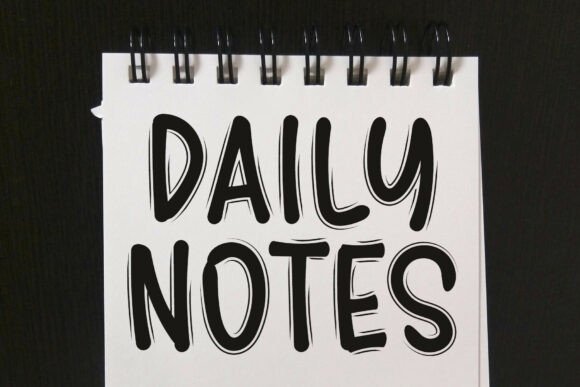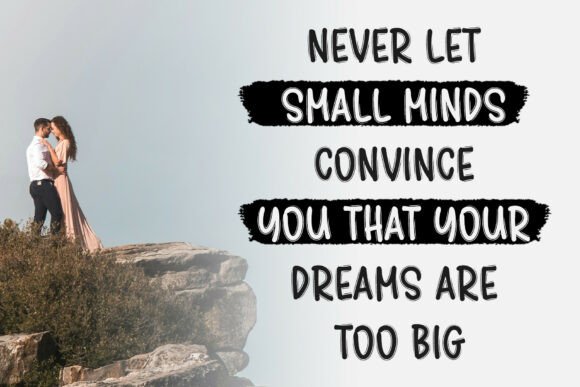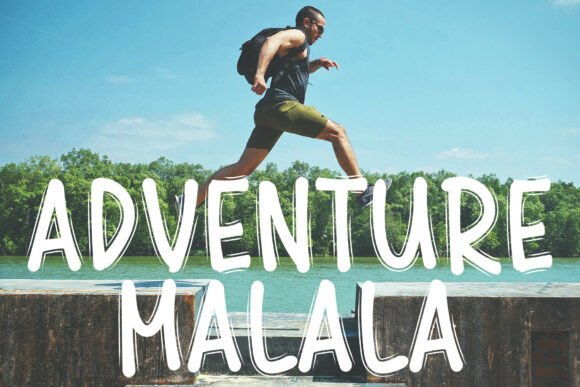
Aurora Alphabet Font
About the Aurora Alphabet Font
Discover the charm of Aurora Alphabet Font. This font is a perfect blend of modern aesthetics and classic appeal. Aurora Alphabet is a beautifully crafted display handwriting font that blends elegance with a modern, artistic touch. Its flowing strokes and well-balanced curves create a sophisticated yet approachable feel, making it the perfect font choice for those who want to add a touch of class and personality to their designs.
Aurora Alphabet excels in applications requiring a touch of refined elegance, such as logos, short headlines, invitations, or packaging design where its graceful curves make a strong visual statement. It’s ideal for brands projecting sophistication and a hint of artistic flair. However, its display nature makes it unsuitable for body text or extended reading; the flowing strokes can hinder readability in larger blocks of text.
Pair Aurora Alphabet with a clean sans-serif like Open Sans for a contemporary feel, or a classic serif such as Garamond for a more traditional balance. For a playful contrast, consider pairing it with a geometric sans-serif font like Montserrat.
The overall personality of Aurora Alphabet is sophisticated yet approachable; elegant without being overly formal. Its inherent modernity prevents it from feeling dated, making it a versatile choice for a range of projects.
Aurora Alphabet Font Example